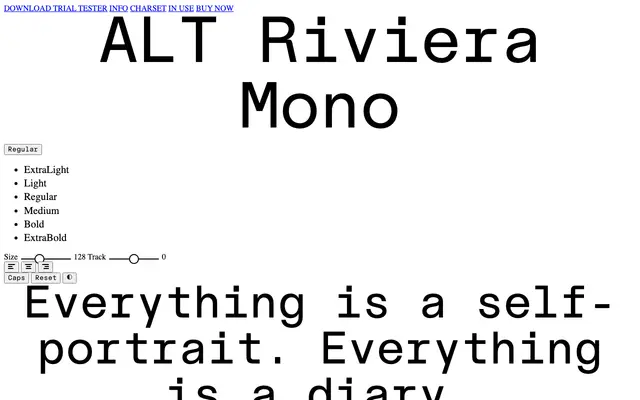
ALT Riviera Mono
A fixed-width companion to the Riviera family that preserves the proportional cuts' geometric character and subtle irregularities within strict monospaced constraints.
Built on the same geometric logic as the proportional Riviera styles, this mono resists the sterile quality common to fixed-width type by retaining slight asymmetric curves and intentional joins. Six weights run from ExtraLight to ExtraBold, each with italics, covering over 600 glyphs including Latin Extended A, partial Latin Extended B and Greek. Suited to code, data and interface work, though its controlled personality keeps it usable in editorial contexts too.
A fixed-width typeface built on the geometric logic of the proportional Riviera family, with consistent stroke weight and grotesque letterforms characteristic of monospaced grotesques.